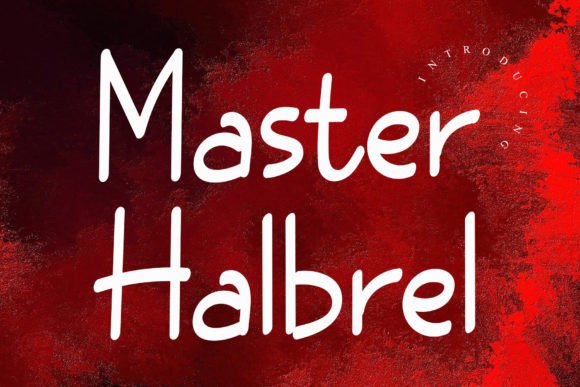
In a world where visual communication reigns supreme, let Master Halbrel, a captivating sans serif font, orchestrate your digital presence. Crafted by the skilled hands at BabyArt, this typographic gem is the key to unlocking a realm of creative possibilities. With its elegant curves and refined strokes, Master Halbrel transforms ordinary designs into breathtaking masterpieces.
Unleash the full potential of your channel art with Master Halbrel, the font that resonates with your audience. Its striking presence commands attention, leaving an indelible mark on the digital landscape. Whether you're a seasoned designer or just starting your creative journey, Master Halbrel empowers you to communicate with impact.
Envision your designs adorned with Master Halbrel's timeless beauty. It's the perfect choice for greeting cards, wedding invitations, and party invitations. Its versatility shines through in every application, adding a touch of sophistication and charm. Let Master Halbrel elevate your designs to new heights, making every project a testament to your impeccable taste.
Embrace Master Halbrel, the font that captures the essence of elegance and creativity. It's a font that speaks to your soul, evoking emotions and leaving lasting impressions. As a masterpiece crafted by BabyArt, Master Halbrel embodies the essence of timeless design. It's a font that you'll cherish, a font that will accompany you on your creative journey, enabling you to leave an indelible mark on the digital world.